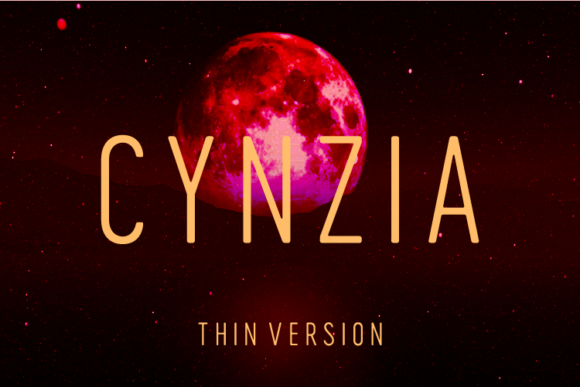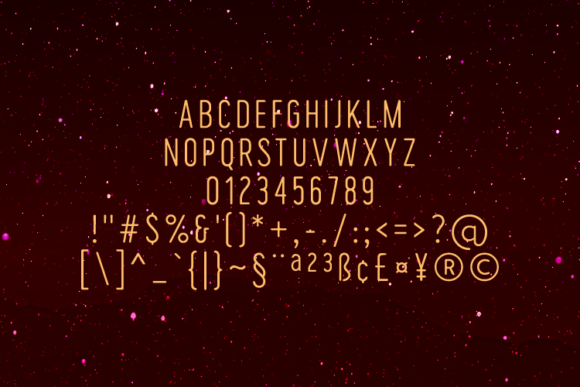
Cynzia Thin Font
About Cynzia Thin Font
Cynzia is a condensed geometric sans serif with rounded corners, like a moon. This typeface was influenced by geometric sans serifs with circular forms on the tops and bottoms of characters. Its proportions have been condensed by incorporating straight sides for a design that is sturdy, yet economical. Cynzia will deliver both subtle softness and a sharper appearance in a wide range of designs.